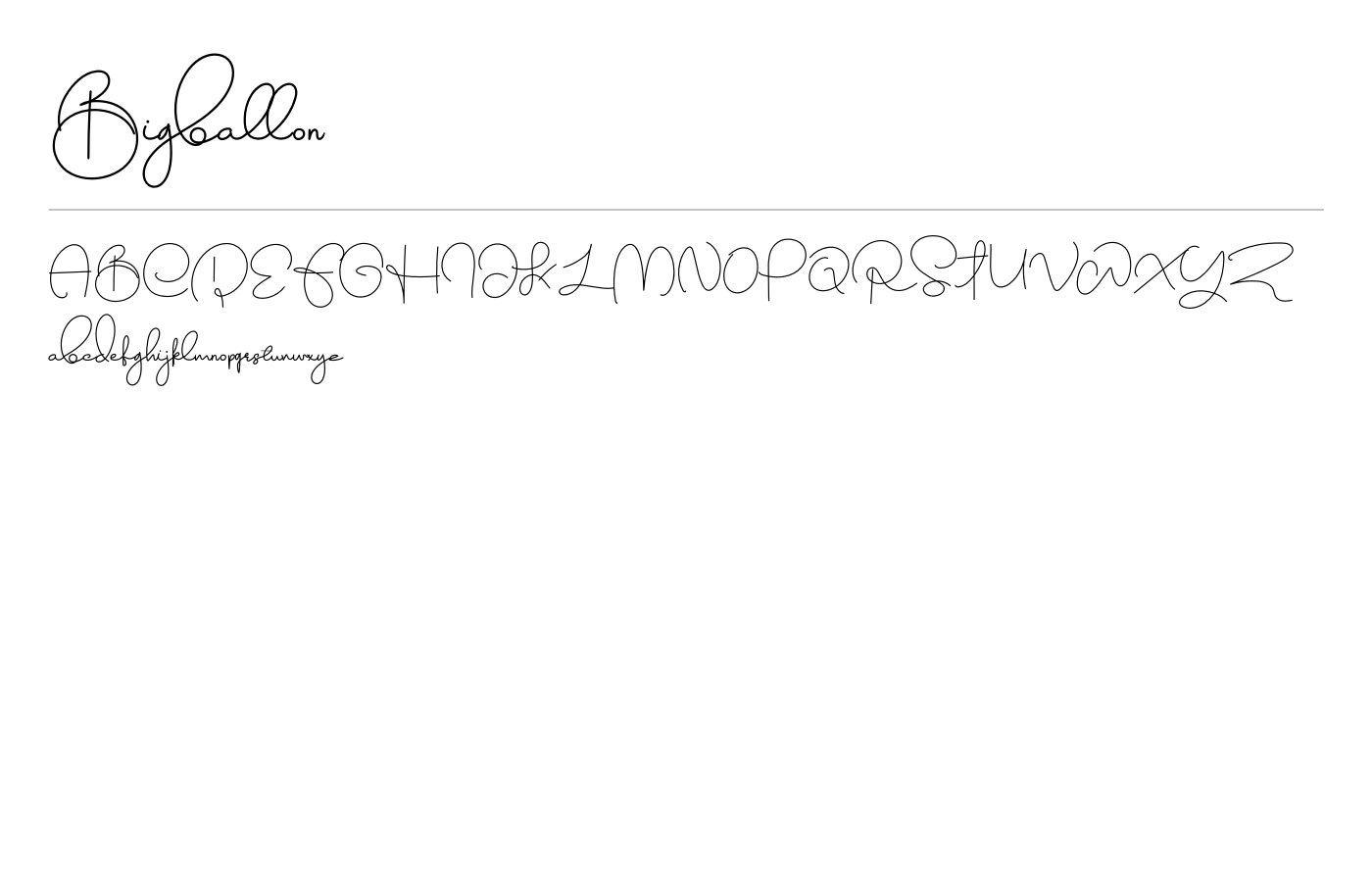
Bigballon is a playful, thin script font with a whimsical, handwritten style featuring elegant loops and airy strokes. Its tall, delicate letterforms and flowing connections give it a light, artistic feel perfect for creative branding, invitations, and casual headlines. This font adds a charming, personal touch to any design needing a stylish yet informal vibe.
Bigballon Font
About Bigballon Font